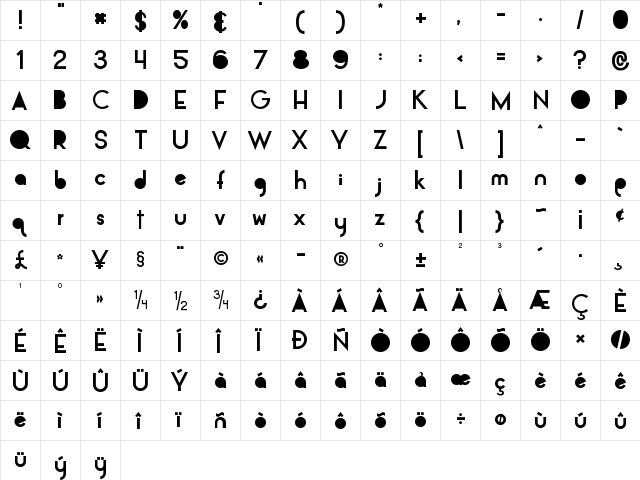
Alpaca Solidify Regular
Design Context for Alpaca Solidify Typeface
Alpaca Solidify is a composed and adaptable typeface that performs quietly and consistently across a wide range of design contexts.